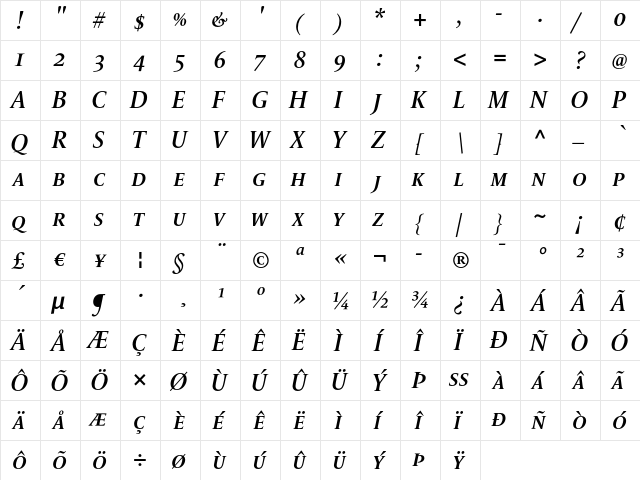
LeMonde Livre SC SemiBoldItalic
Design Context for LeMonde Livre SC Typeface
LeMonde Livre SC takes a measured approach to typography — its balanced proportions and neutral character make it a reliable workhorse for both digital and print work. The dynamic lean of this cut emphasises speed and emphasis in any layout. Its bold stroke weight gives it real presence on the page.
Pro Tip: Use LeMonde Livre SC for emphasis, pull quotes, and subheadings where its slanted energy can add rhythm to the layout.